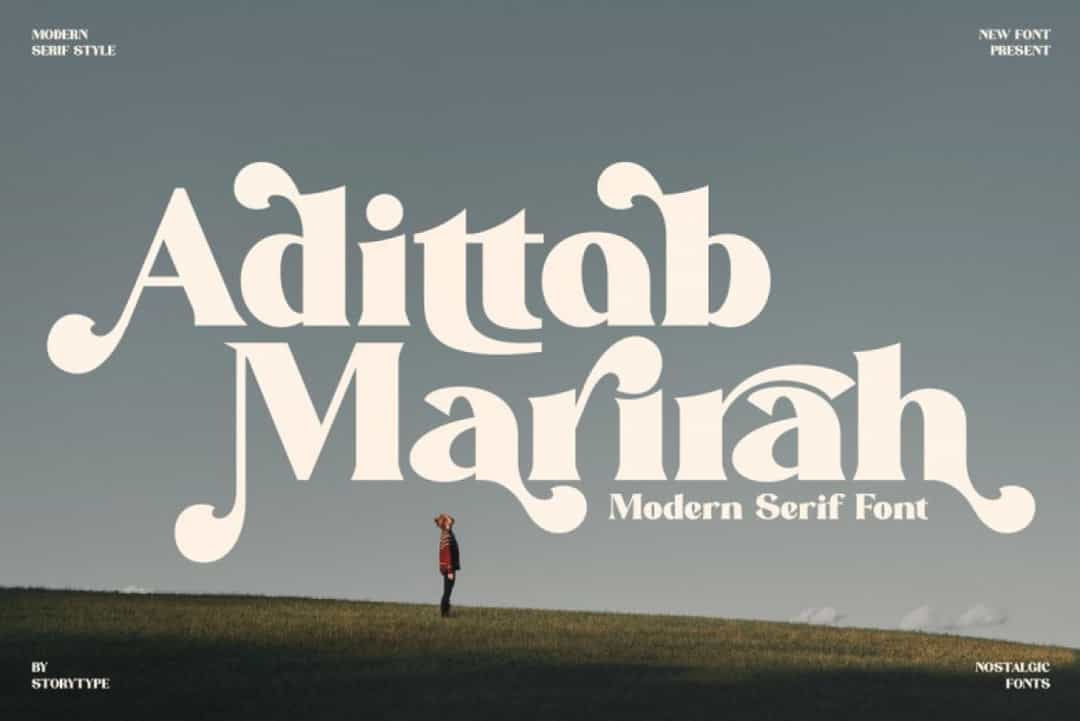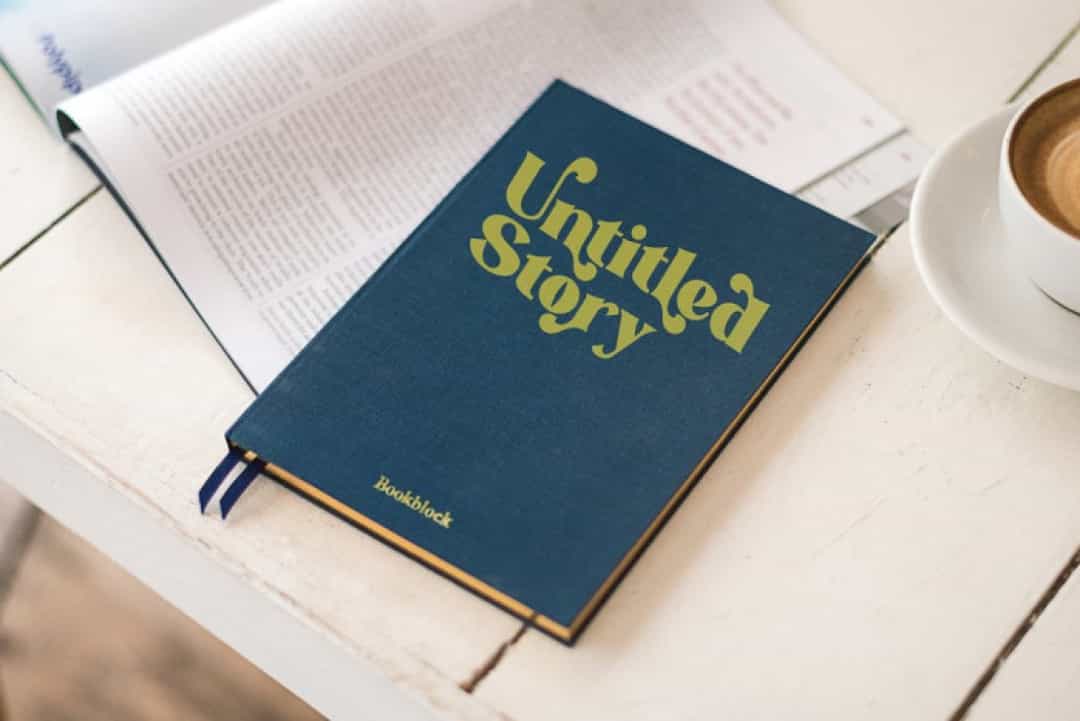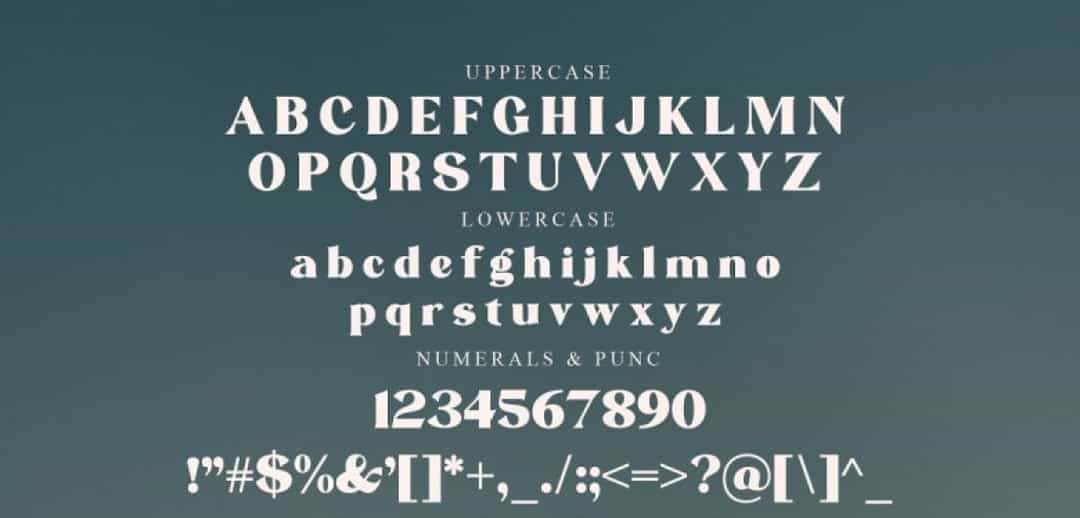
Storytype’s Adittab Marirah Serif Font is an elegant modern serif and classic typeface, ideal for luxurious logos, movie or book titles, fashion brands clothing collections magazines letters quotes or any other purpose that requires sophisticated serif fonts. This font can also be used as letters from magazines for letters quotes etc.